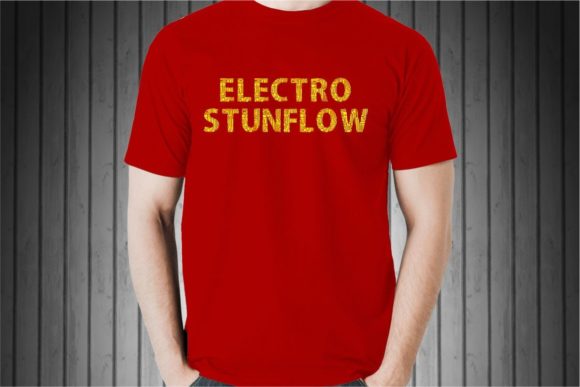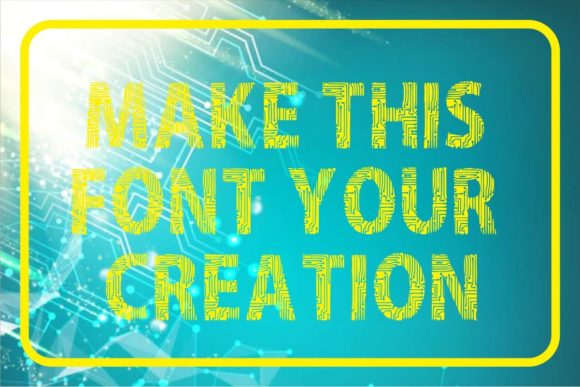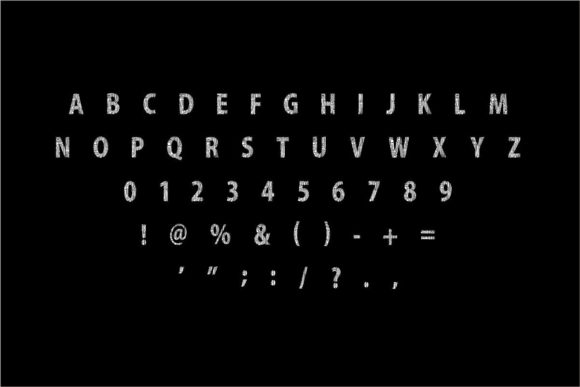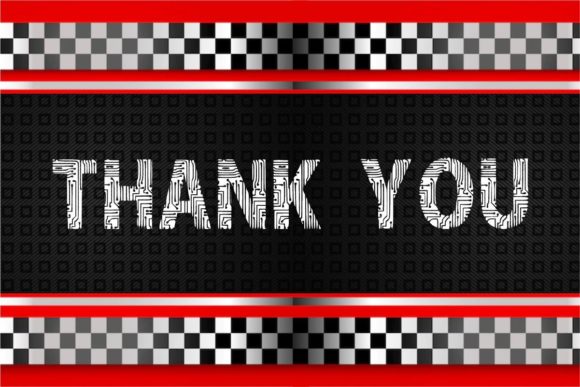
Unleash the Power of Electro Stunflow: The Ultimate Electronic Skeleton Display Font
Are you a designer or crafter looking for a unique and bold font to add some edge to your creative projects? Look no further than Electro Stunflow, an electronic skeleton display font that embodies strength and power. This versatile font is perfect for a variety of design themes, logos, t-shirts, backgrounds, and more. In this article, we’ll dive into the world of Electro Stunflow and explore its endless possibilities.
What is Electro Stunflow?
Electro Stunflow is a cutting-edge electronic skeleton display font that is sure to make a statement. Its bold and edgy design makes it perfect for designers and crafters who want to add a touch of industrial chic to their work. The font’s skeleton design gives it a futuristic and high-tech feel, making it ideal for projects that require a strong and modern aesthetic.
Key Features of Electro Stunflow
- Unique Skeleton Design: Electro Stunflow’s skeleton design sets it apart from other fonts. Its bold and edgy lines make it perfect for creating striking designs.
- Electronic Feel: The font’s electronic feel gives it a modern and high-tech aesthetic, making it perfect for projects that require a futuristic look.
- Versatile: Electro Stunflow is a versatile font that can be used for a variety of design themes, logos, t-shirts, backgrounds, and more.
Uses of Electro Stunflow
Electro Stunflow is a versatile font that can be used in a variety of creative projects. Here are some ideas to get you started:
- Logos: Create a bold and striking logo for your business or brand with Electro Stunflow.
- T-Shirts: Design eye-catching t-shirts with Electro Stunflow’s unique skeleton design.
- Backgrounds: Add a touch of industrial chic to your backgrounds with Electro Stunflow.
- Posters: Create striking posters with Electro Stunflow’s bold and edgy design.
- Social Media Graphics: Use Electro Stunflow to create eye-catching social media graphics that will grab attention.
Tips for Using Electro Stunflow
Here are some tips for using Electro Stunflow in your creative projects:
- Experiment with Different Sizes: Electro Stunflow looks great in large and small sizes, so experiment with different sizes to find the one that works best for your project.
- Pair with Other Fonts: Pair Electro Stunflow with other fonts to create a unique and striking design.
- Use in Combination with Images: Use Electro Stunflow in combination with images to create a bold and eye-catching design.
Electro Stunflow is a powerful and versatile electronic skeleton display font that is perfect for designers and crafters who want to add a touch of industrial chic to their creative projects. Its unique skeleton design, electronic feel, and versatility make it a must-have font for any designer or crafter looking to create bold and striking designs. So why wait? Add Electro Stunflow to your favorite creative ideas and see how they come to life!